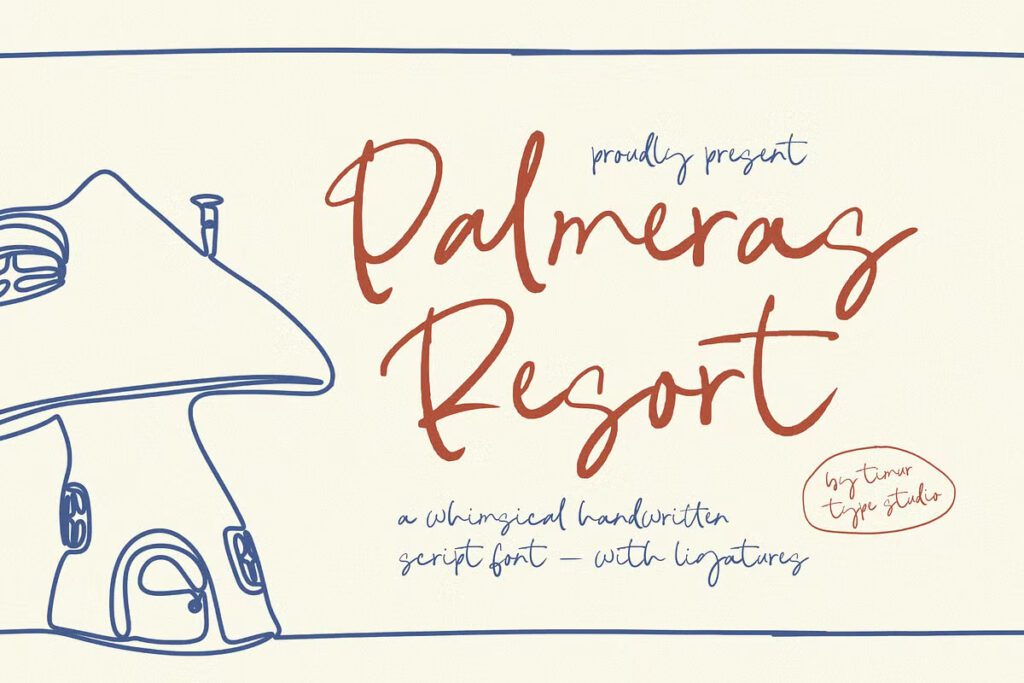
Palmeras Resort Font: A Whimsical Script for Tropical Vibes
Looking to bring the essence of a tropical vacation to your designs? Introducing the Palmeras Resort Font by Timurtype Studio—a whimsical handwritten script that captures the carefree spirit of beachside getaways. With its fluid curves and playful ligatures, this font adds a relaxed, inviting vibe to any project, whether it’s a travel brochure, beach-themed branding, or casual invitations.
Why Palmeras Resort Font is the Perfect Choice
Tropical Aesthetic: The Palmeras Resort Font is designed to evoke the feeling of a sun-kissed resort, making it ideal for designs that require a warm, carefree atmosphere. Whether you’re working on summer promotions or tropical-themed events, this font will bring a touch of paradise to your project.
Playful and Whimsical: Each letter in the Palmeras Resort Font dances with whimsical charm. Its flowing curves and lively ligatures give it a fun, light-hearted personality that stands out, making your text feel dynamic and engaging.
Versatile for Multiple Projects: This handwritten script font is perfect for a wide range of design applications. Use it for travel brochures, beach party invitations, or even casual branding projects. Its unique style will make your designs feel personal and inviting.
Key Features of Palmeras Resort Font
Multilingual Support: The font supports multiple languages, making it a great choice for global audiences. You can confidently use Palmeras Resort Font in international projects without worrying about language limitations.
Inviting and Relaxed Style: The playful yet refined nature of Palmeras Resort Font adds an easygoing elegance to your text, perfect for projects that need a laid-back, tropical vibe.
Perfect for Designers Looking to Add Tropical Flair
If you’re a designer searching for a font that combines playfulness with sophistication, Palmeras Resort is the ideal pick. It’s especially well-suited for travel agencies, beach resorts, or any project aiming to evoke a tropical, carefree feel.
The Palmeras Resort Font brings a delightful mix of whimsy and elegance to your designs. Its carefree spirit and tropical charm make it a must-have for anyone looking to create warm, inviting visuals that stand out.